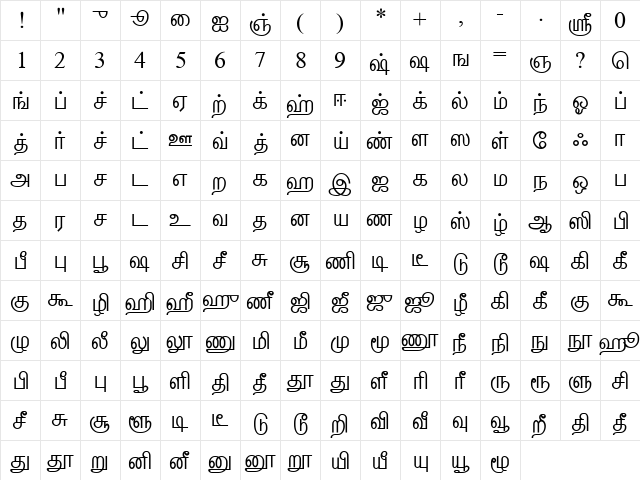
Vavuniya Regular
Design Context for Vavuniya Typeface
Vavuniya takes a measured approach to typography — its balanced proportions and neutral character make it a reliable workhorse for both digital and print work.